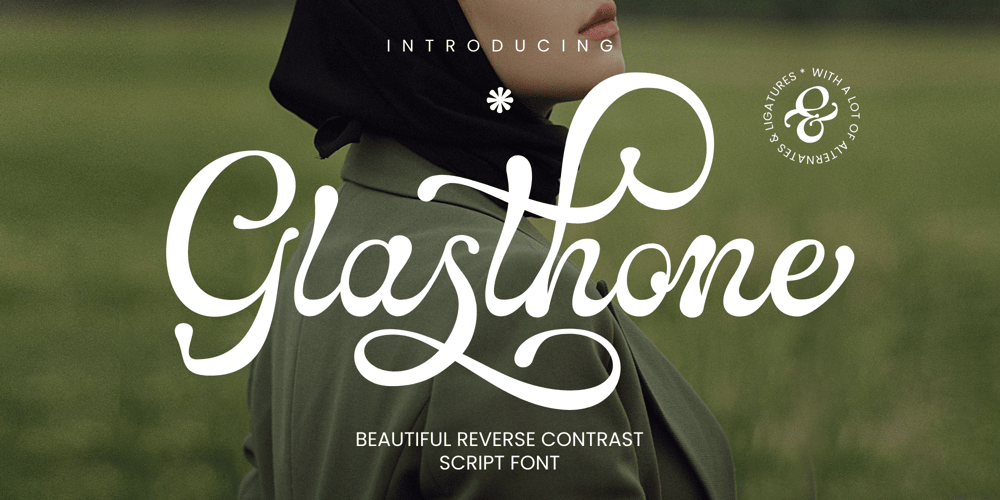
Glasthone Calligraphy font Font Family was designed by Zaki Muhammad and published by madjack.font. Glasthone Calligraphy font contains 1 styles and family package options. Glasthone Calligraphy Font is a handcrafted brush font created with brushes and ink. This typeface is ideal for use in bold watercolor designs or handwritten styles, such as blog titles, posters, wedding elements, t-shirts, clothing, book covers, business cards, greeting cards, branding, merchandise, etc.Contains complete set: Uppercase Lowercase alternative fasteners Punctuation number Multilingual support. Thank You!